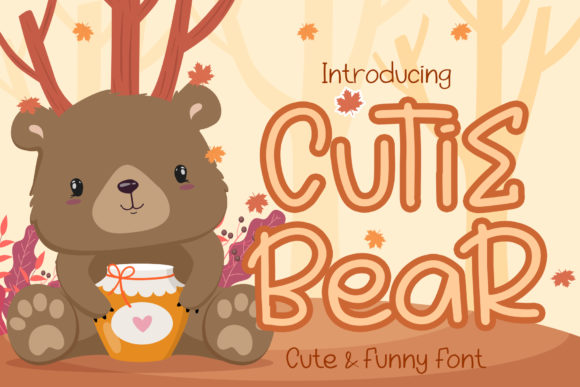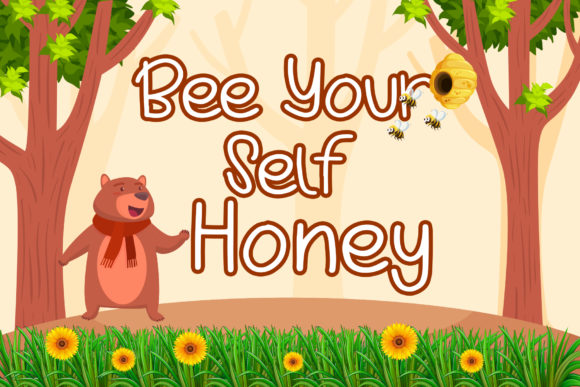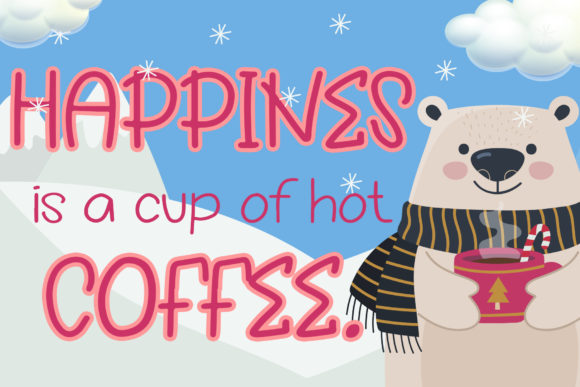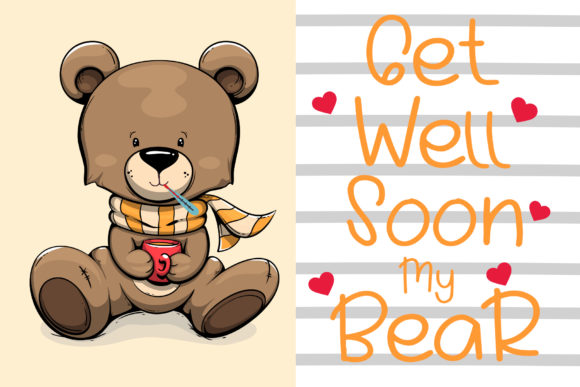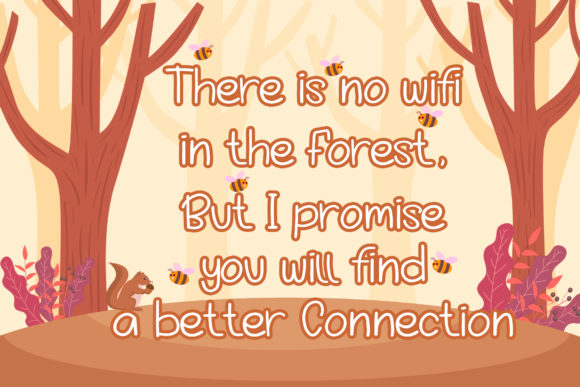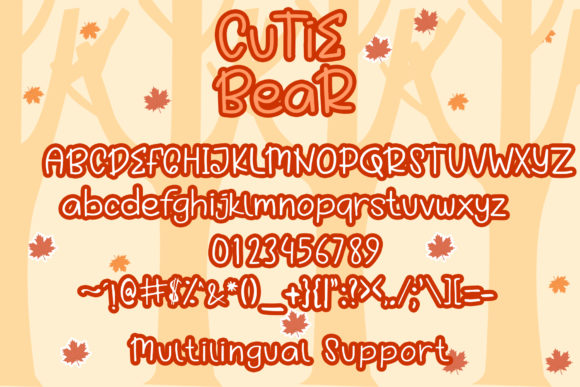
Cutie Bear Font
About Cutie Bear Font
Cutie Bear is a sweet and friendly handwritten font. Its natural and unique style makes it incredibly fitting to a large pool of designs.